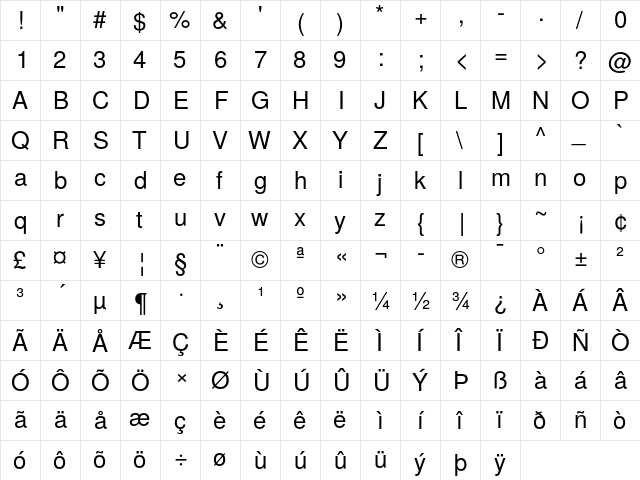
TeX Gyre Heros Regular
Design Context for TeX Gyre Heros Typeface
TeX Gyre Heros is a composed and adaptable typeface that performs quietly and consistently across a wide range of design contexts.
Pro Tip: Use TeX Gyre Heros in both headline and body roles to test its range before committing to a single application.